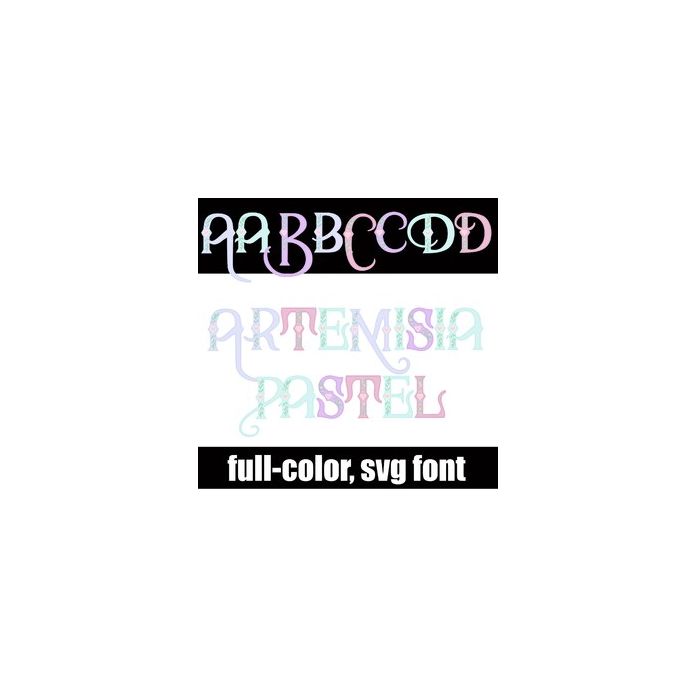
Artemisia Pastel Color Font
This full-color font features a heart-decorated, elaborate font with a flourished uppercase. There is a secondary alt case of both upper and lowercase letters in additional colors that you can access through Silhouette's glyph map. This font works best for titles, displays, posters and more. Please note color fonts will show as black in non compatible programs. This font type is compatible with Silhouette Studio.